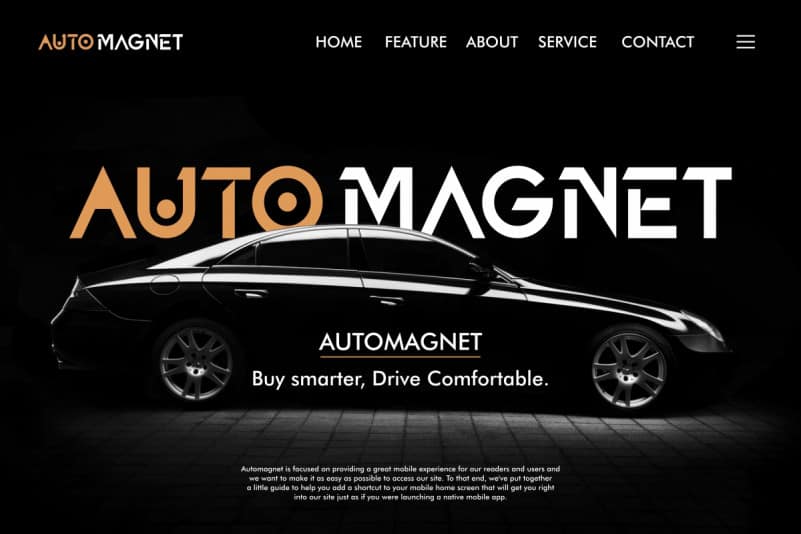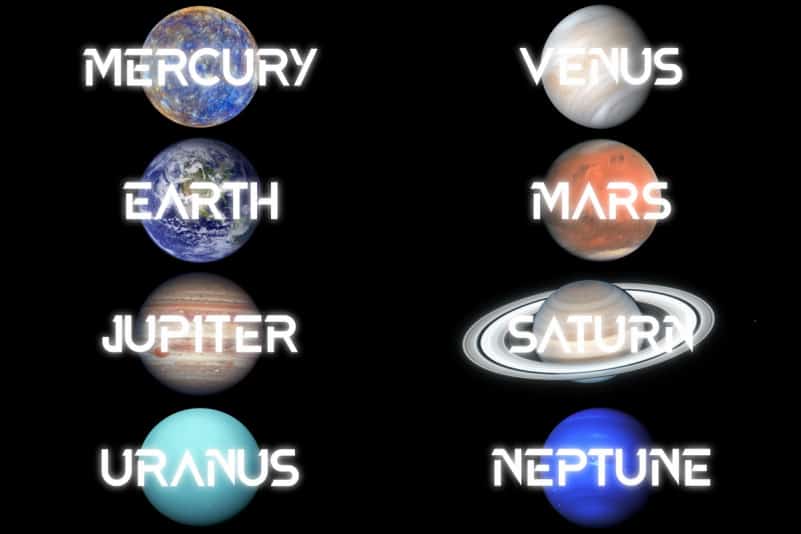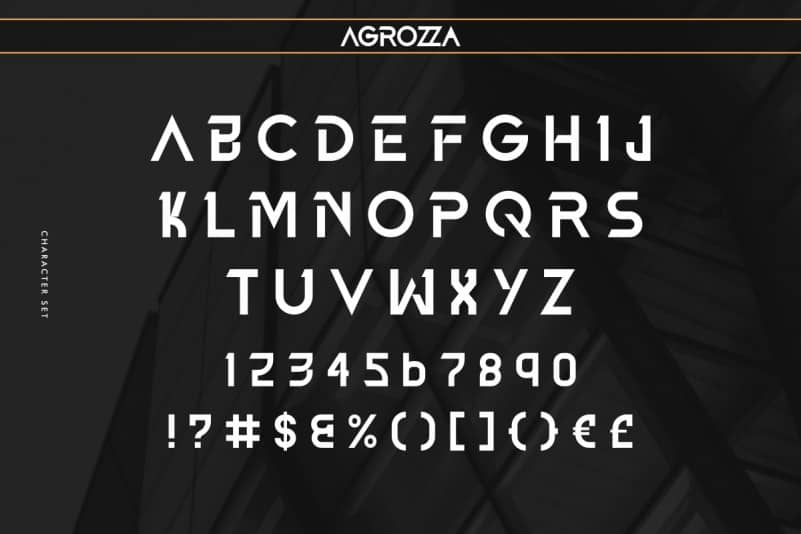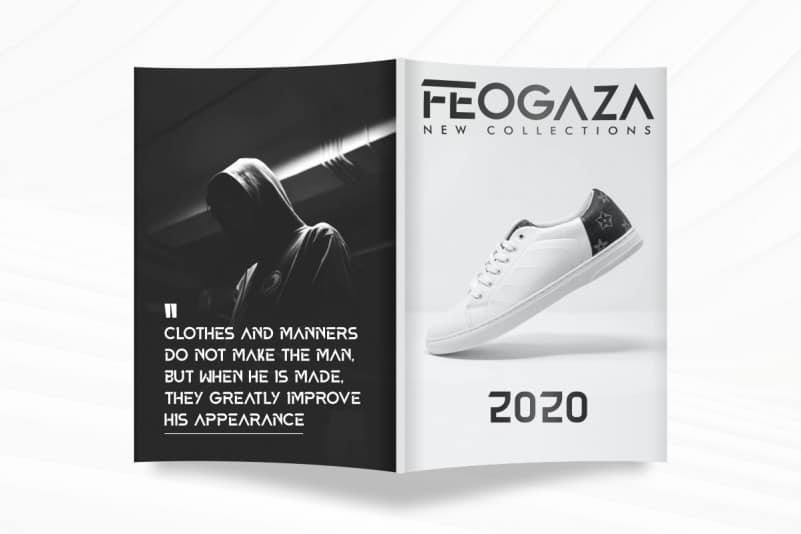
AGROZZA Display Font
AGROZZA Display Font is remotely made by RaisProject team in Indonesia. The font was handcrafted for any your special projects including : headlines, promotion, events, branding, advertising, magazine, signage, invitation, stationery, social media posts, label, or and any projects that need unique strong style. The theme/industries of this font is Futuristic, Beauty, Technology, Game, Magazine, Music, Spaceship, aircraft etc. AGROZZA Font includes full set of gorgeous uppercase and numerals characters.